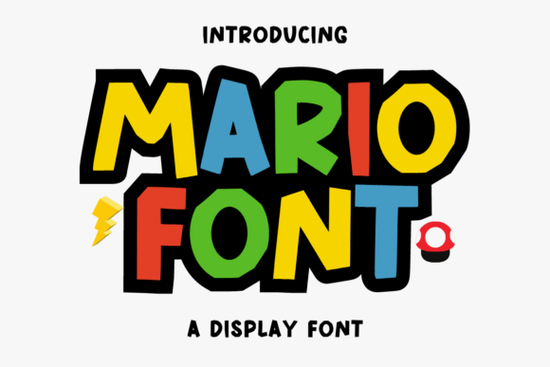
If you’ve ever wanted to add a playful, eye-catching vibe to your designs without overcomplicating things, the Mario Font might be just what you’re looking for. It’s bold without being overwhelming, fun without feeling childish, and versatile enough to work on everything from kids’ birthday invites to printed tees and wall quotes. Whether you’re running a small print shop or just love making custom gifts, this font gives you that instant personality boost no design degree required.
What kinds of projects does this font actually work well on?
You’ll find Mario Font shines when you need something that grabs attention but still feels approachable. Think:
- Kids’ party decorations – Invitations, banners, cupcake toppers
- T-shirt and tote bag designs – Especially for casual, humorous, or motivational phrases
- Social media graphics – Quotes, announcements, or seasonal posts that need a little extra pop
- Classroom materials – Reward charts, name tags, posters
It pairs especially well with clean sans-serifs or handwritten scripts if you’re layering text. And because it’s so readable even at larger sizes, it’s forgiving if you’re still getting comfortable with layout spacing or hierarchy.
How does it compare to other display fonts on Creative Fabrica?
Not all bold fonts are created equal. Some feel heavy or corporate; others lean too cartoony. Mario Font sits in that sweet spot energetic but not chaotic. If you’ve liked the chunky texture of fonts with tactile depth, or the cheerful bounce of rounded letterforms, you’ll probably feel right at home here.
It’s also less ornate than something like Western Goldrush, which leans into vintage cowboy vibes, and more structured than fonts designed purely for young audiences. That makes Mario Font a flexible middle ground great for all-ages appeal without losing its character.
Any tips for pairing it with other typefaces?
Absolutely. Since Mario Font already has strong visual weight, keep your secondary fonts simple. A minimalist sans-serif like Montserrat or Lato works beautifully for body text or supporting info. If you’re going for contrast, try pairing it with a thin script just don’t go overboard with decorative elements. Let Mario Font do the talking, and use the other fonts to guide the eye or add context.
Color-wise? It pops against dark backgrounds (navy, charcoal, deep green) and feels extra playful on bright pastels or white. Avoid using it over busy patterns unless you add a solid stroke or background block behind the letters readability matters, even in fun designs.
That said, many users report they come back to this font again and again because it’s so easy to throw into a project without second-guessing. Sometimes, simplicity wins.
And if you’re curious how it stacks up visually, you can always preview it alongside alternatives like other versions or styles in the same family though most agree this one strikes the best balance between boldness and charm.
Quick checklist before you start designing:
- ✅ Check your license Make sure commercial use is covered if you’re selling products
- ✅ Test at different sizes See how it looks scaled down for tags or up for posters
- ✅ Pair with a neutral font Don’t compete with another loud typeface
- ✅ Add breathing room Give the letters space so they don’t feel cramped
Start with one simple project maybe a quote tee or a birthday card and see how naturally it fits into your workflow. You might be surprised how often you reach for it once it’s in your toolkit.